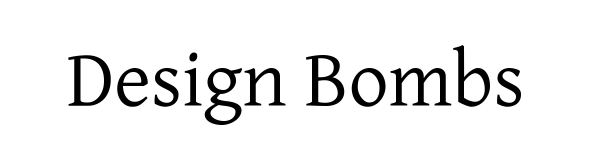
The 10 Best Free Serif Fonts for Designers
Although serif fonts have a reputation for being difficult to read on small screens, they remain extremely popular. Here is a curated selection of 10 that combine elegance and readability:
Top 10 Free Serif Fonts
1. Droid Serif
Best for: Mobile-friendly typography 🔹 Features: Designed by Google for Android, optimized for readability on devices 📥 Download: [Link]
2. Alegreya
Best for: Literary and editorial design 🔹 Features: 12 styles, elegant curves, great for long-form reading 📥 Download: [Link]
3. Andada
Best for: Modern serif/slab-serif hybrid designs 🔹 Features: Contemporary feel with classic structure 📥 Download: [Link]
4. Merriweather
Best for: Digital screens (websites, e-books) 🔹 Features: High readability, designed for online content 📥 Download: [Link]
5. Latin Modern Roman
Best for: Academic and formal documents 🔹 Features: 12 styles, modern take on classic typography 📥 Download: [Link]
6. Vollkorn
Best for: Traditional German-style typography 🔹 Features: 8 weights, balanced proportions 📥 Download: [Link]
7. Cardo
Best for: Academic and historical texts 🔹 Features: Nearly 4,000 glyphs, scholarly aesthetic 📥 Download: [Link]
8. Gentium Basic
Best for: Premium-quality free font 🔹 Features: Elegant, refined, part of the Gentium Plus family 📥 Download: [Link]
9. Afta Serif
Best for: Modern classic fusion 🔹 Features: Blends traditional serifs with contemporary flair 📥 Download: [Link]
10. Otama e.p.
Best for: Playful, creative projects 🔹 Features: Single-weight, whimsical touch 📥 Download: [Link]
Other Notable Free Serif Fonts
• Artifika: Smooth rounded edges, elegant
• Devroye: 4 unconventional styles
Usage Tips
1. Choose fonts based on medium (print vs. digital)
2. Test readability across devices
3. Pair serif with sans-serif for balance (e.g., Merriweather + Open Sans)